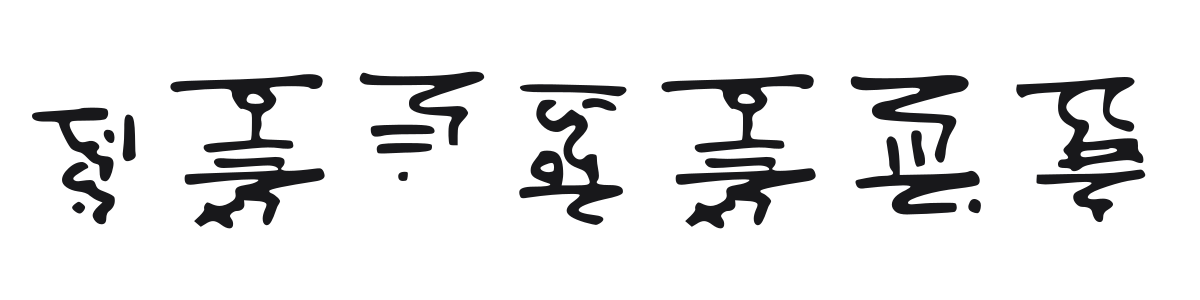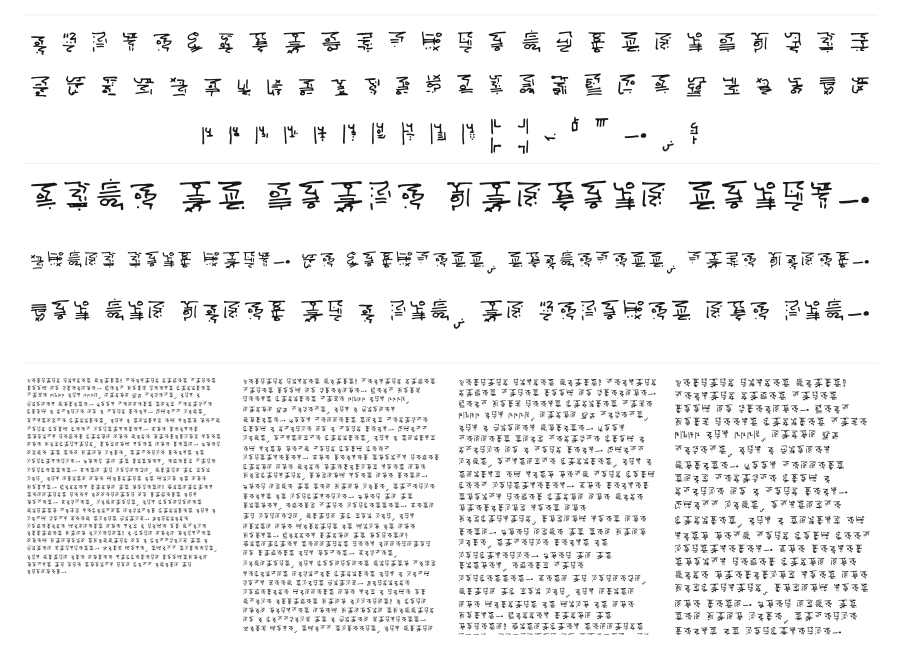
Kilgish
by Owen Farrar
Kilgish is a display font built to look like an invented ancient script, with characters constructed from stacked angular wedge-like strokes that evoke cuneiform or runic writing. Each character clusters into a compact, roughly square form, giving text a dense archaeological texture. It works best as a headline or logo element in fantasy, gaming, or occult-themed projects.